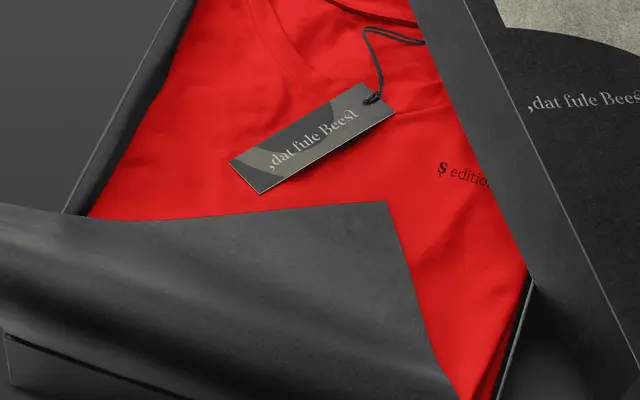
Kisba Nova Text
A text-optimised optical size of Kisba Nova, pairing sharp wedge serifs and spiky spurs with soft ball terminals across seven weights for body copy between 9 and 18pt.
Kisba Nova Text reduces the headline subfamily's dramatic contrast and widens letter proportions and spacing to sustain legibility at smaller sizes without losing the family's defining character. The mix of sharp wedge serifs, spiky spurs and round ball terminals gives it a restless visual energy unusual in a text face. Around 600 characters per weight cover extended Latin and Greek, with OpenType features including oldstyle and lining figures, a large ligature set, case-sensitive forms and discretionary ligatures.
The typeface combines wedge serifs and spiky spurs with ball terminals and neoclassical stroke contrast, placing it firmly in the neoclassical or contrast serif tradition, with display-derived DNA adapted for text setting.